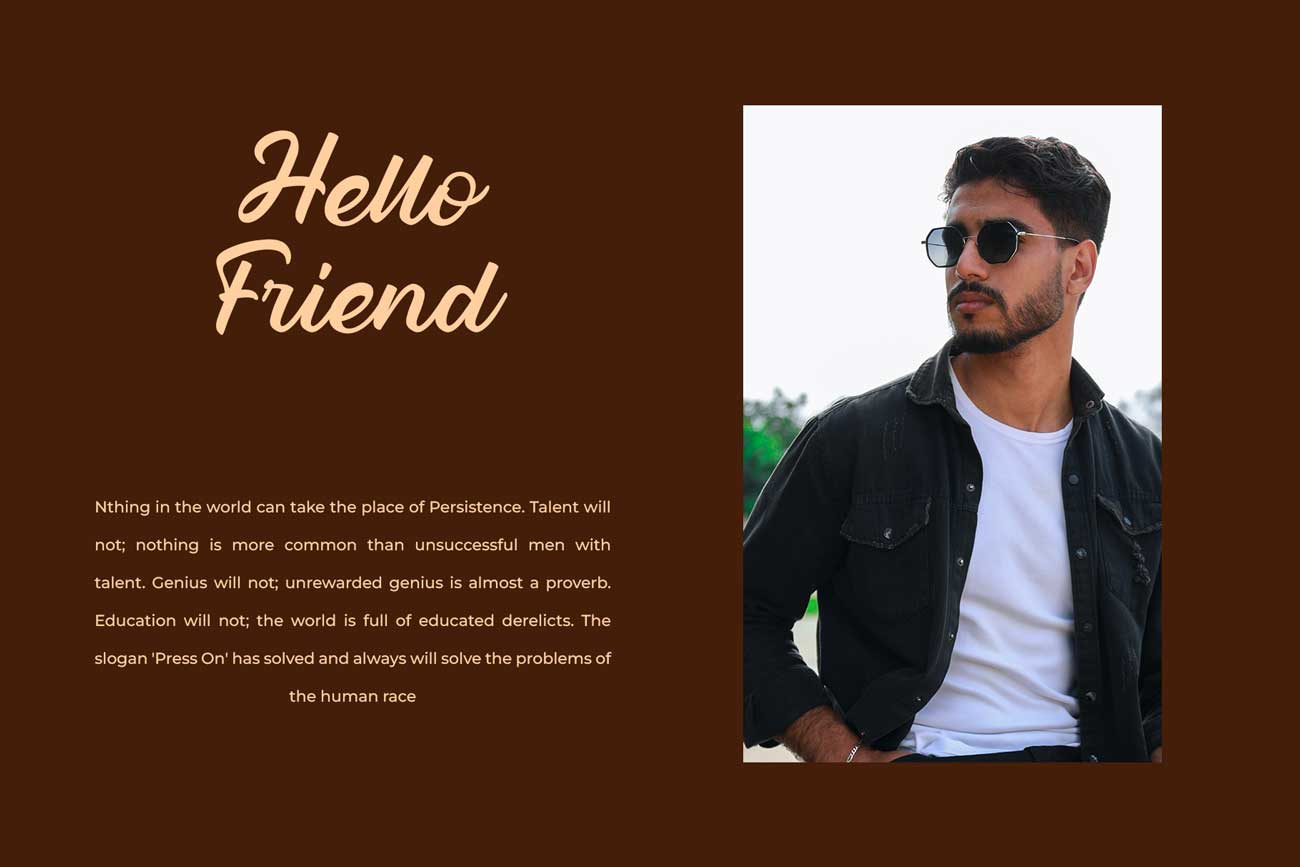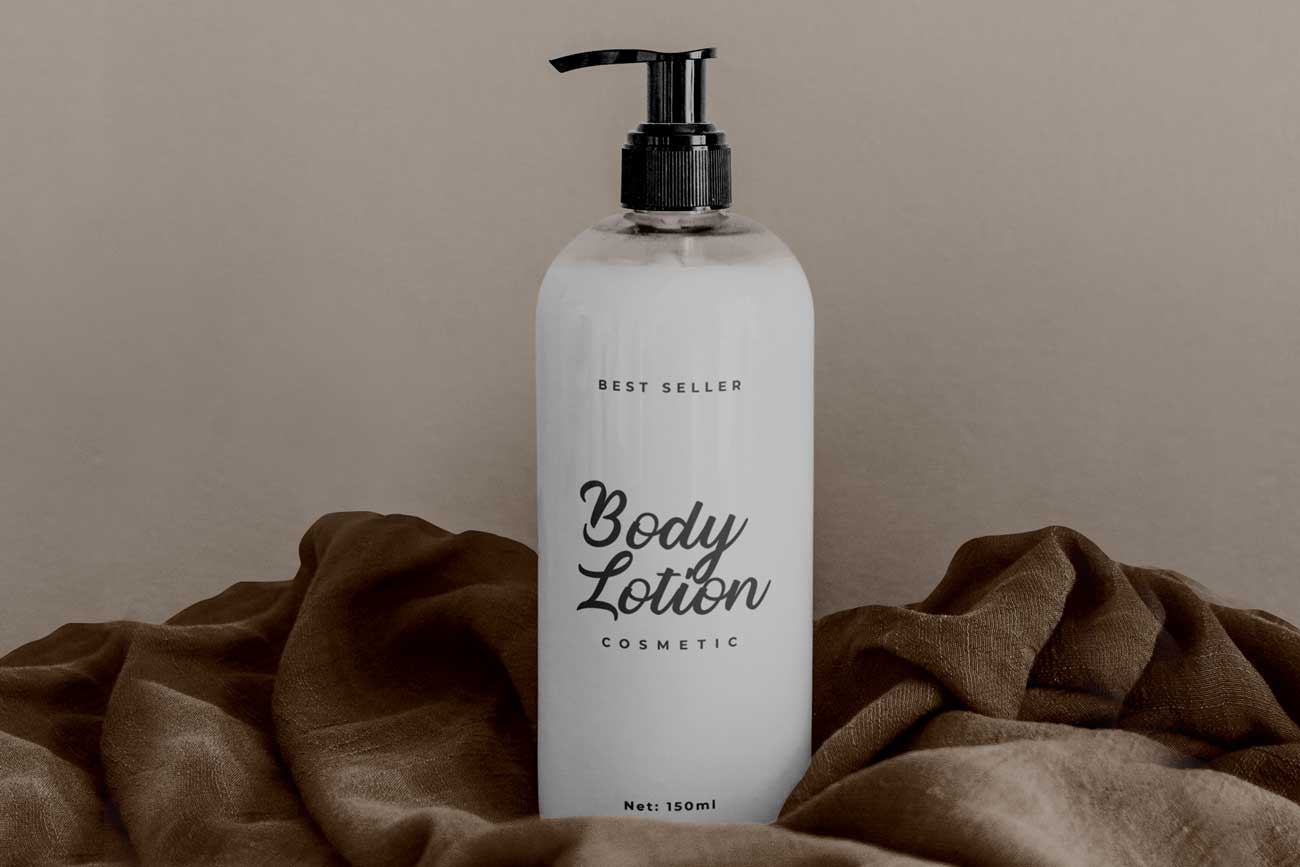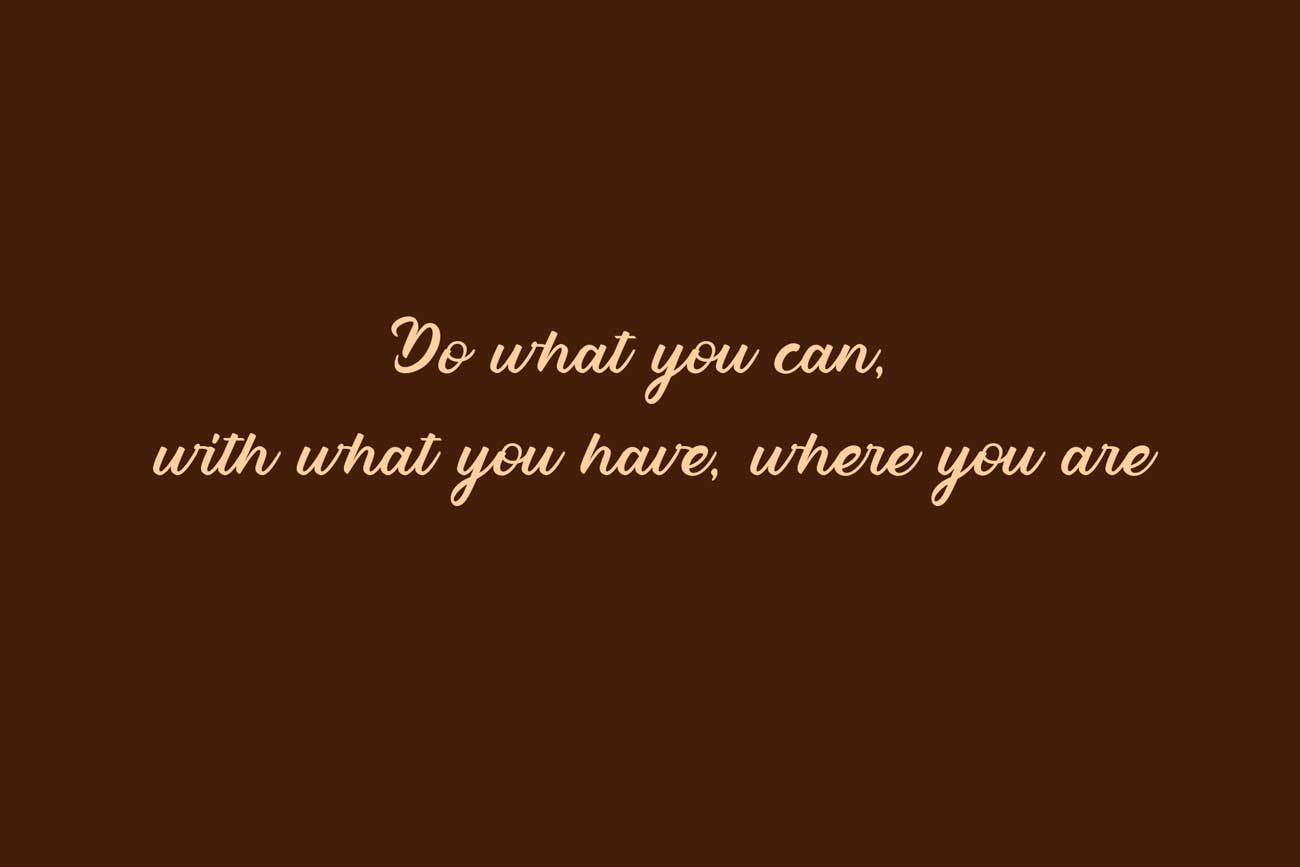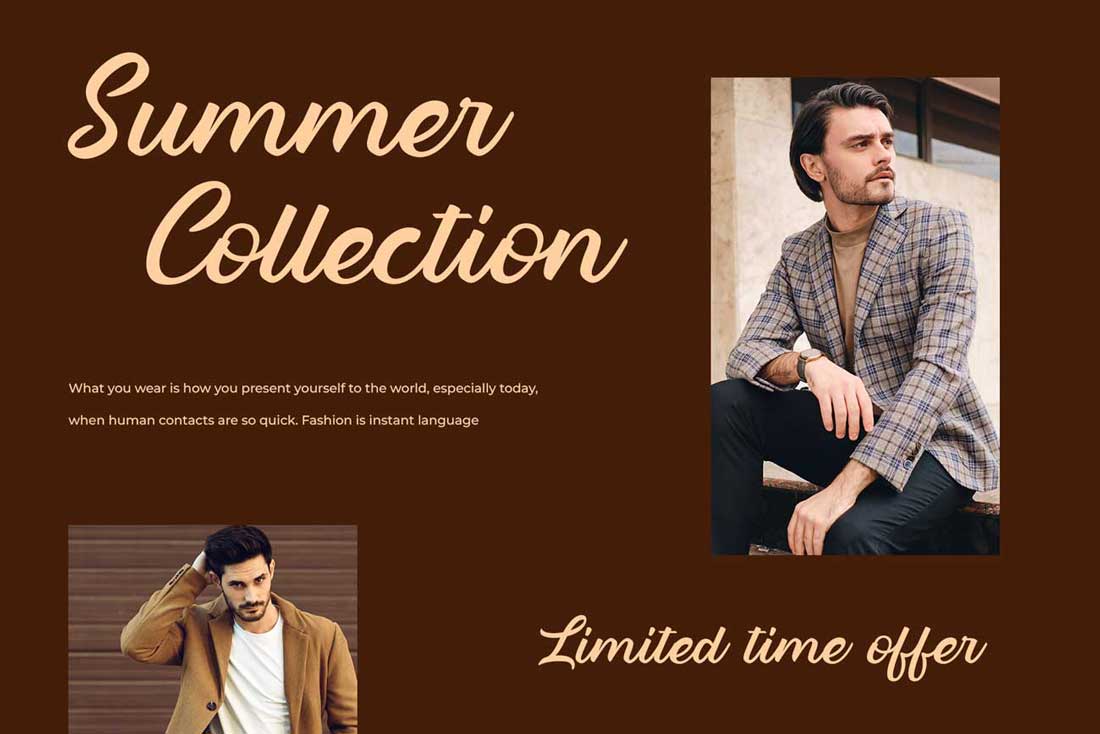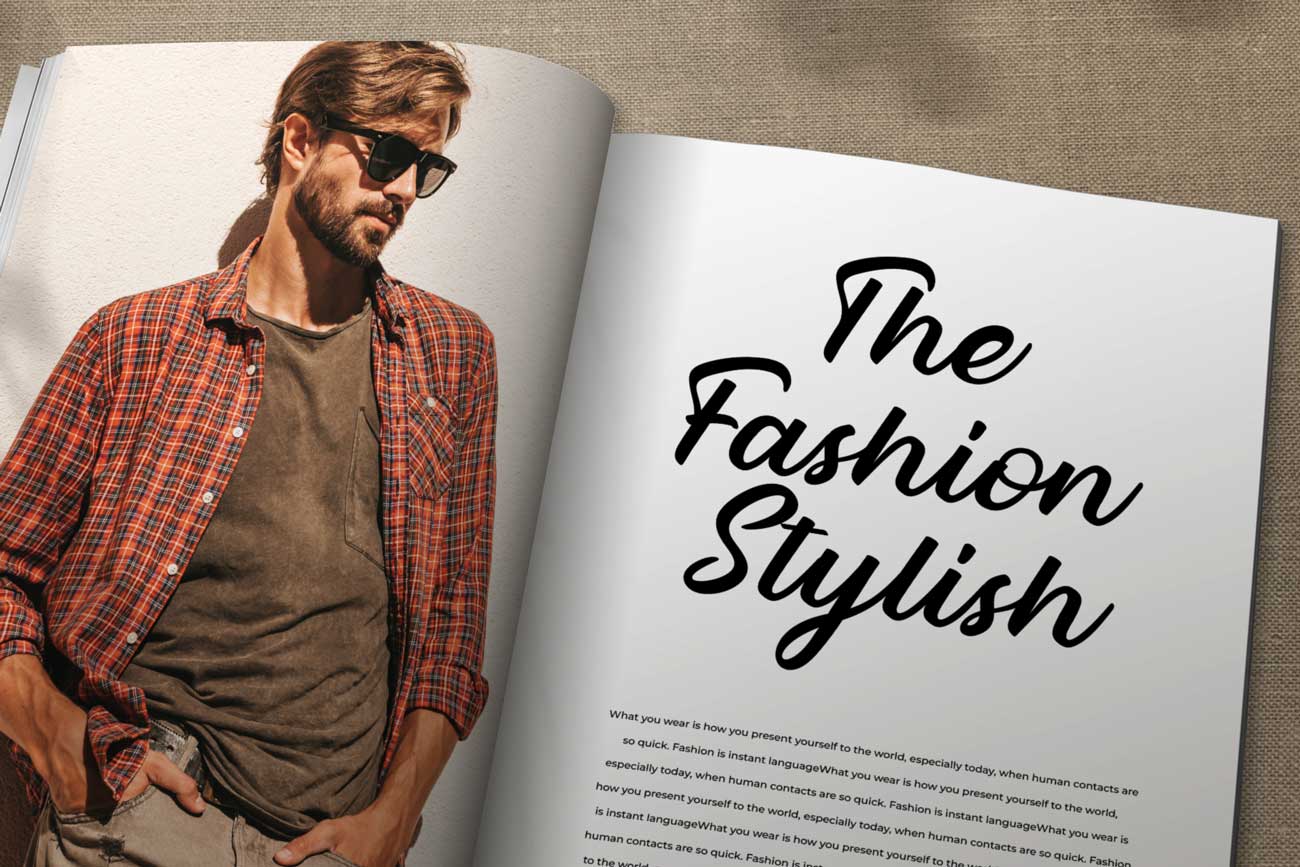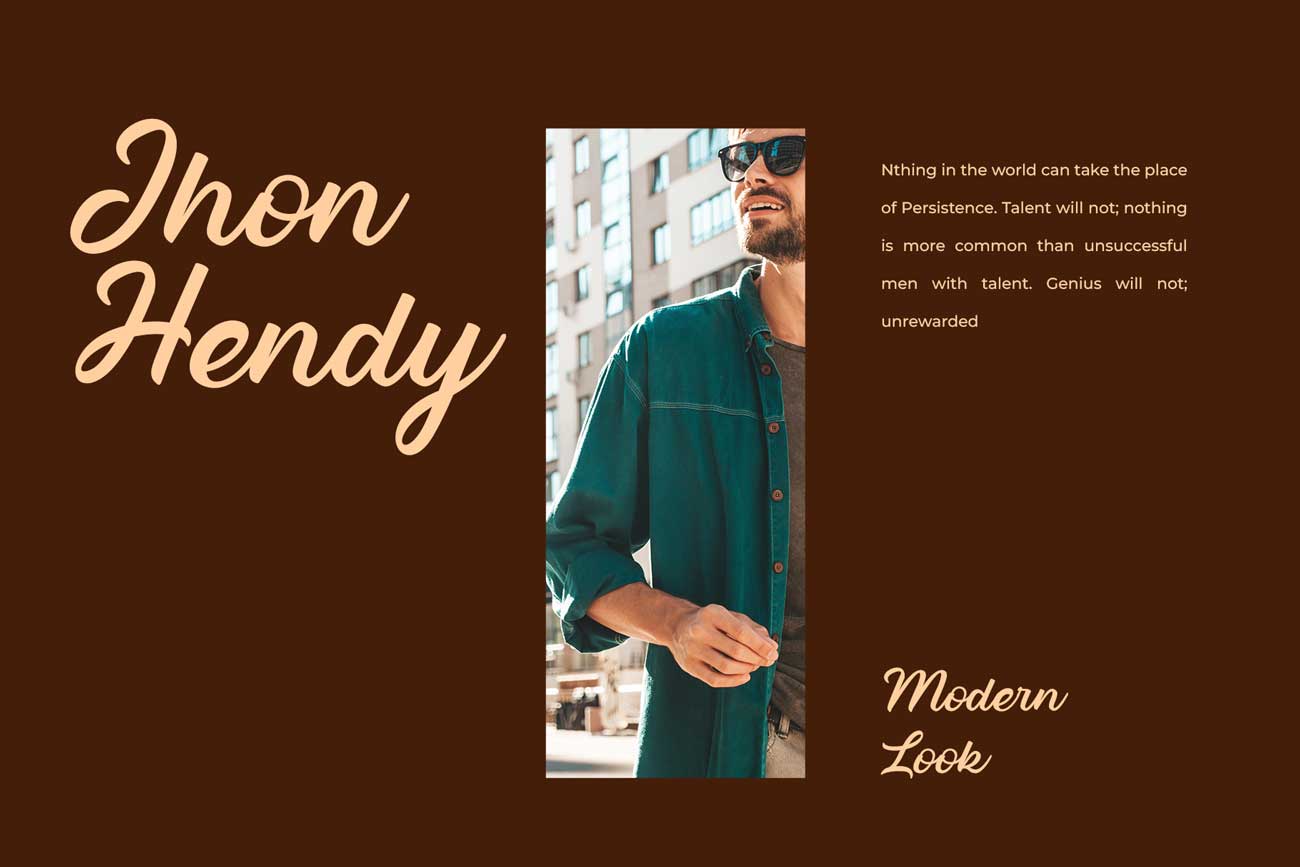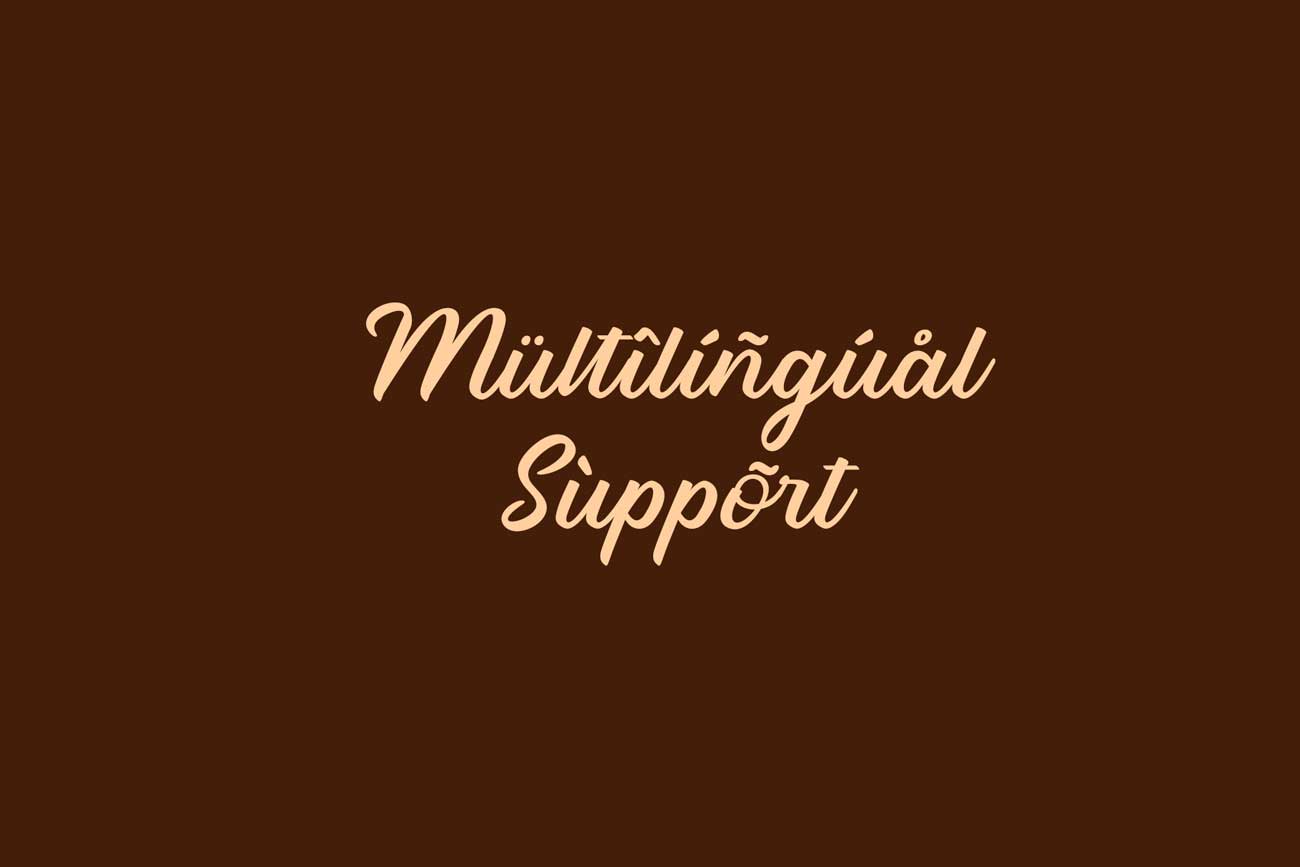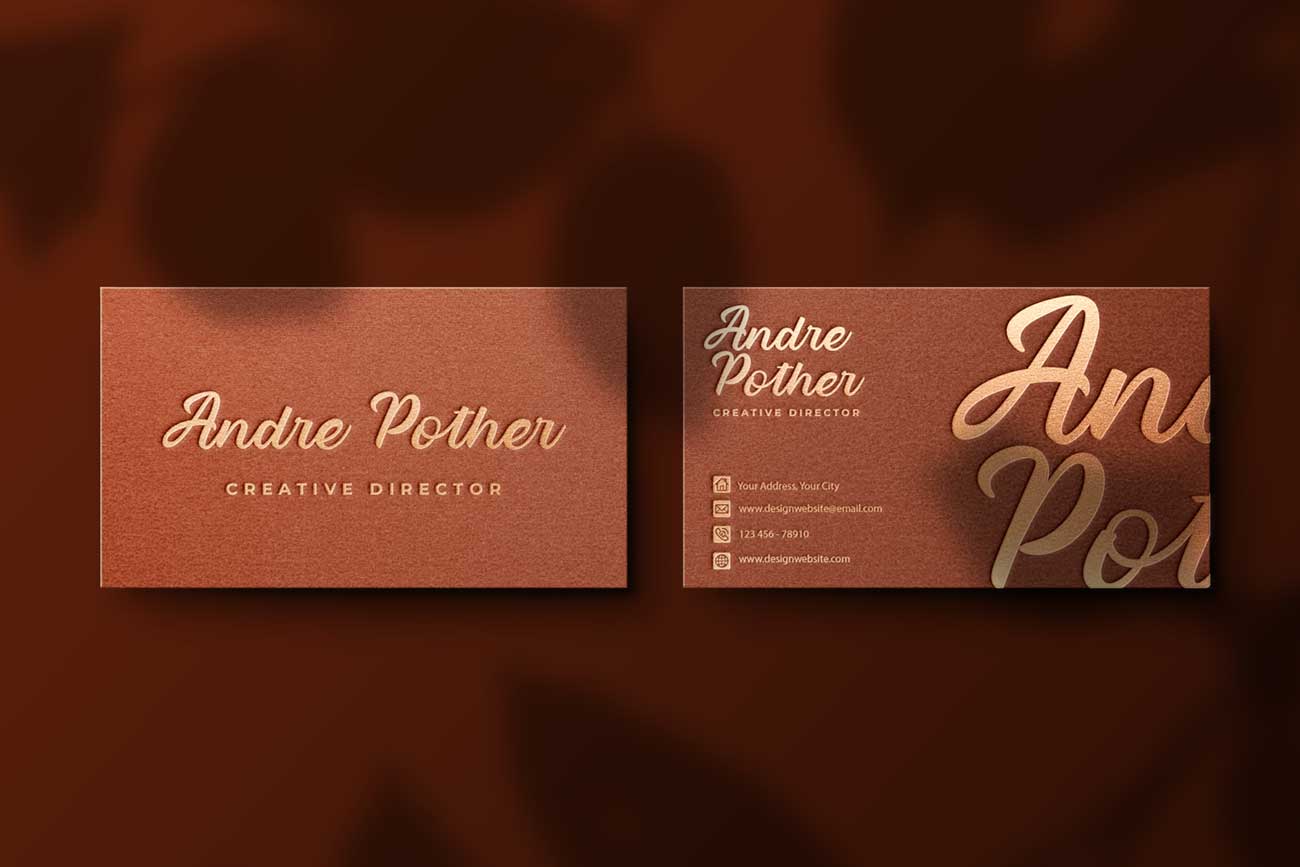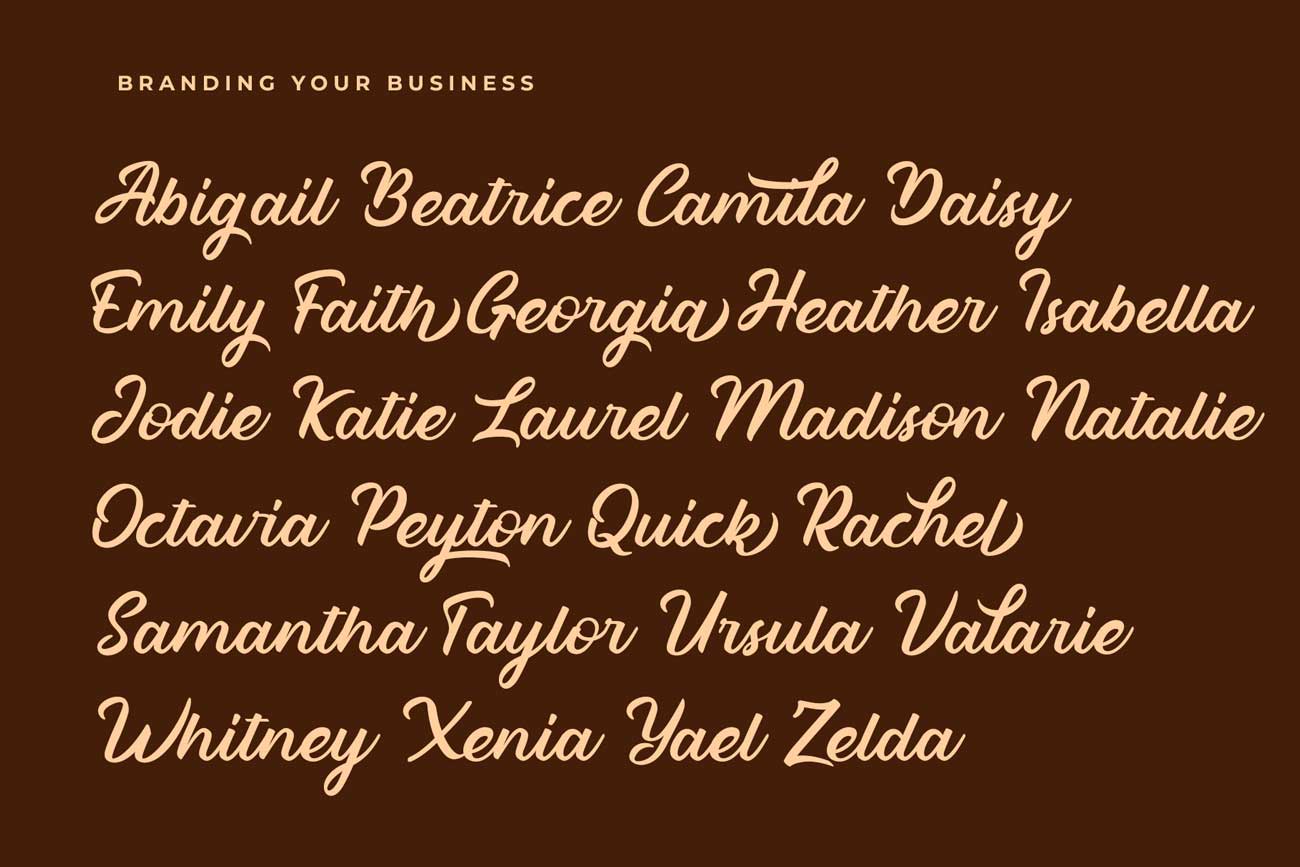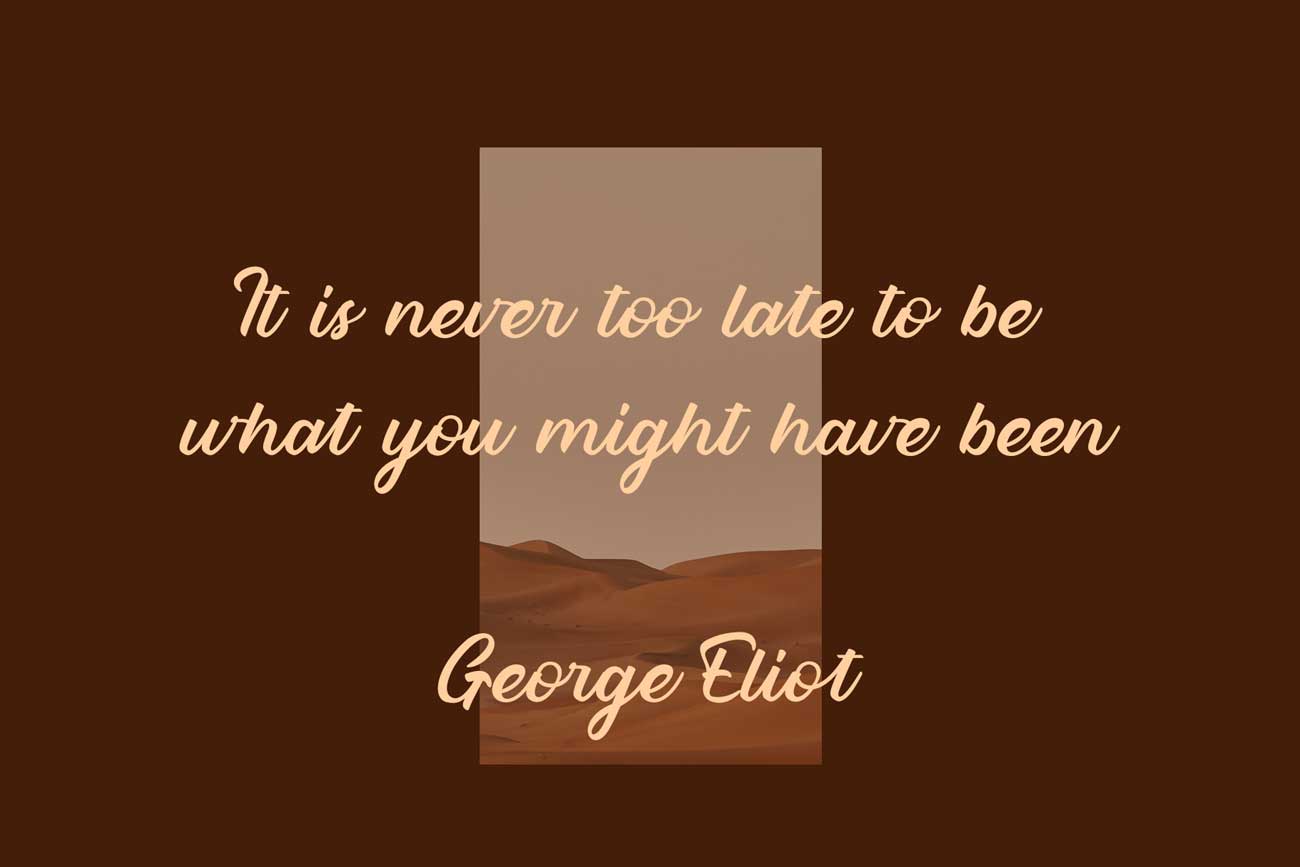
Themor Stylish font
Themor is modern stylish font every single curve has my personality touch. Themor separated in regular and ligature version you can choice it.
It is great for making logotype, branding, promotional ads, quotes design, packaging, t-shirt design. merchandise, poster, merchandise, social media and much more. Lost Habit is here to make your work or your business to high level!!!
• Basic character  A-Z and a-z